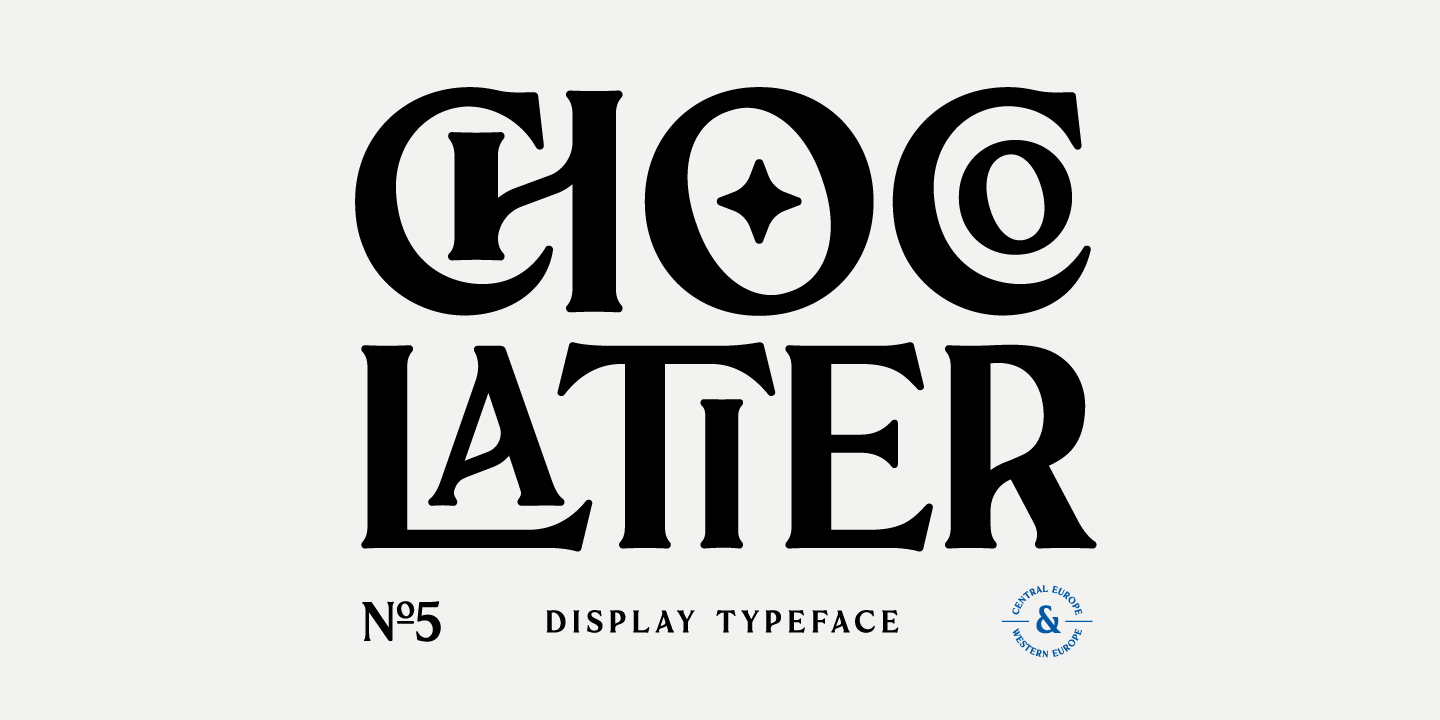
Indulge in typographic decadence with Chocolatier Font Free Download – a luscious serif typeface inspired by vintage chocolate packaging and art nouveau elegance. This richly detailed font melts sophistication with sweetness, perfect for luxury food branding, boutique labels, and projects needing edible appeal.
Why Chocolatier Font Stands Out
Chocolatier Font Free Download delivers:
Velvety smooth letterforms with subtle swashes
Perfect balance of ornamentation and readability
Multiple stylistic alternates for customization
Instant gourmet credibility
Chocolatier Font Free Download Technical Features:
True italics with calligraphic flair
Old-style numerals for premium layouts
OpenType features including ligatures
Optimized for foil stamping and embossing
Decadent Applications:
Artisan chocolate packaging
Luxury dessert menus
Vintage-inspired branding
Wedding confectionery labels
High-end food magazines
Design Tip: Pair with rich burgundy tones and gold foil effects for maximum indulgence!